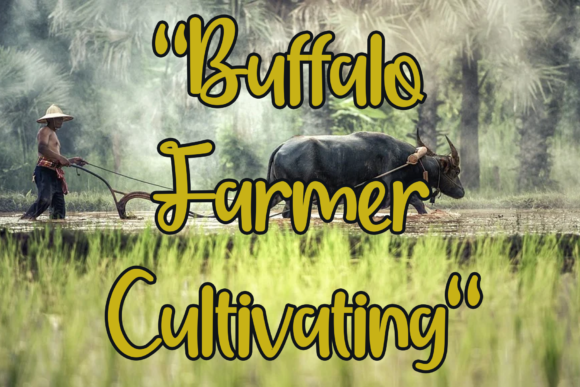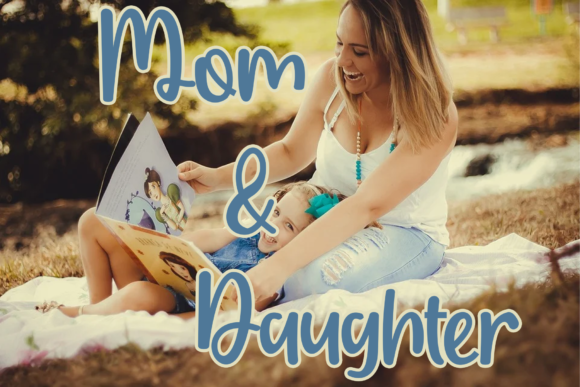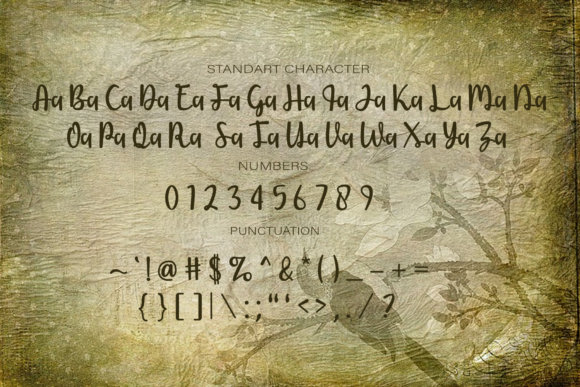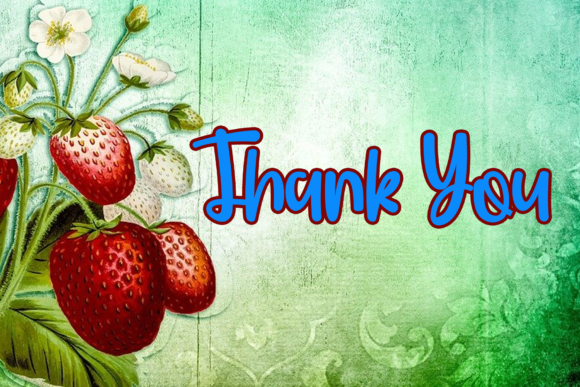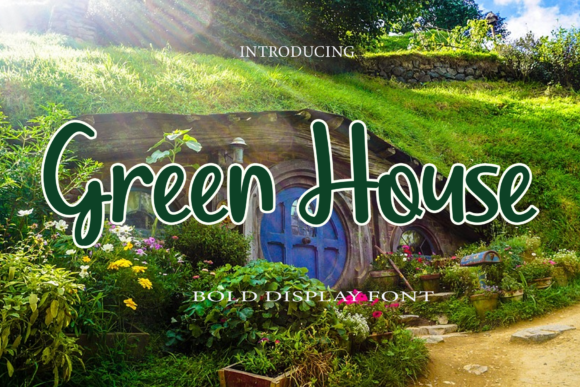
Introducing Green House Font: The Fun and Friendly Display Font You Need
Are you tired of using the same old fonts for your designs and crafts? Look no further than Green House Font, a fun and friendly display font that’s sure to make your creations stand out from the crowd. With its simple yet strong visual effect, Green House Font is the perfect addition to any designer’s or crafter’s toolkit.
What Makes Green House Font So Special?
Green House Font is a display font that’s designed to be noticed. Its unique and playful style makes it perfect for headlines, titles, and other applications where you want to grab attention. But what really sets Green House Font apart is its simplicity. Unlike some fonts that can be overwhelming or difficult to read, Green House Font is easy to understand and navigate, making it perfect for use in a variety of contexts.
The Benefits of Using Green House Font
So why should you choose Green House Font for your next design or craft project? Here are just a few benefits of using this versatile and engaging font:
• Instant visual impact: Green House Font has a strong visual effect that will instantly make your creation more appealing than others.
• Easy to read: Despite its playful style, Green House Font is easy to read and understand, making it perfect for use in a variety of contexts.
• Versatile: Green House Font can be used in a wide range of applications, from digital designs to print materials.
• Fun and friendly: Green House Font has a fun and friendly vibe that’s perfect for brands and designers who want to convey a sense of approachability and warmth.
How to Use Green House Font in Your Designs
Green House Font is easy to use and can be incorporated into a wide range of design projects. Here are a few ideas to get you started:
• Headlines and titles: Use Green House Font to create eye-catching headlines and titles that will grab attention and draw readers in.
• Social media graphics: Green House Font is perfect for use in social media graphics, where you want to stand out from the crowd and make a lasting impression.
• Branding and logos: Consider using Green House Font as part of your branding or logo, where its fun and friendly vibe can help to convey your brand’s personality.
• Invitations and announcements: Green House Font is also perfect for use in invitations and announcements, where its playful style can add a touch of whimsy and fun.
Tips for Getting the Most Out of Green House Font
To get the most out of Green House Font, here are a few tips to keep in mind:
• Experiment with different colors: Green House Font looks great in a wide range of colors, so don’t be afraid to experiment and find the perfect hue for your design.
• Play with font sizes: Green House Font can be used at a variety of font sizes, from large and bold to small and subtle.
• Combine with other fonts: Consider combining Green House Font with other fonts to create a unique and visually interesting design.
Green House Font is a fun and friendly display font that’s perfect for designers and crafters who want to add a touch of whimsy and personality to their creations. With its simple yet strong visual effect, Green House Font is sure to make your designs stand out from the crowd. So why not give it a try and see the difference it can make?